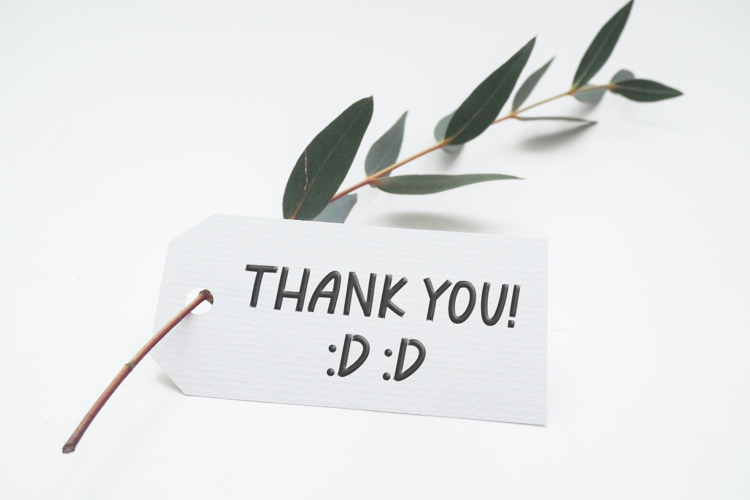
Summer Font
Summer Brush Font, inspired by Brush typography. This font is made with a high premium quality level which you can use as flyers, quotes, posters, banners, packaging, merchandise, logotypes and much more.